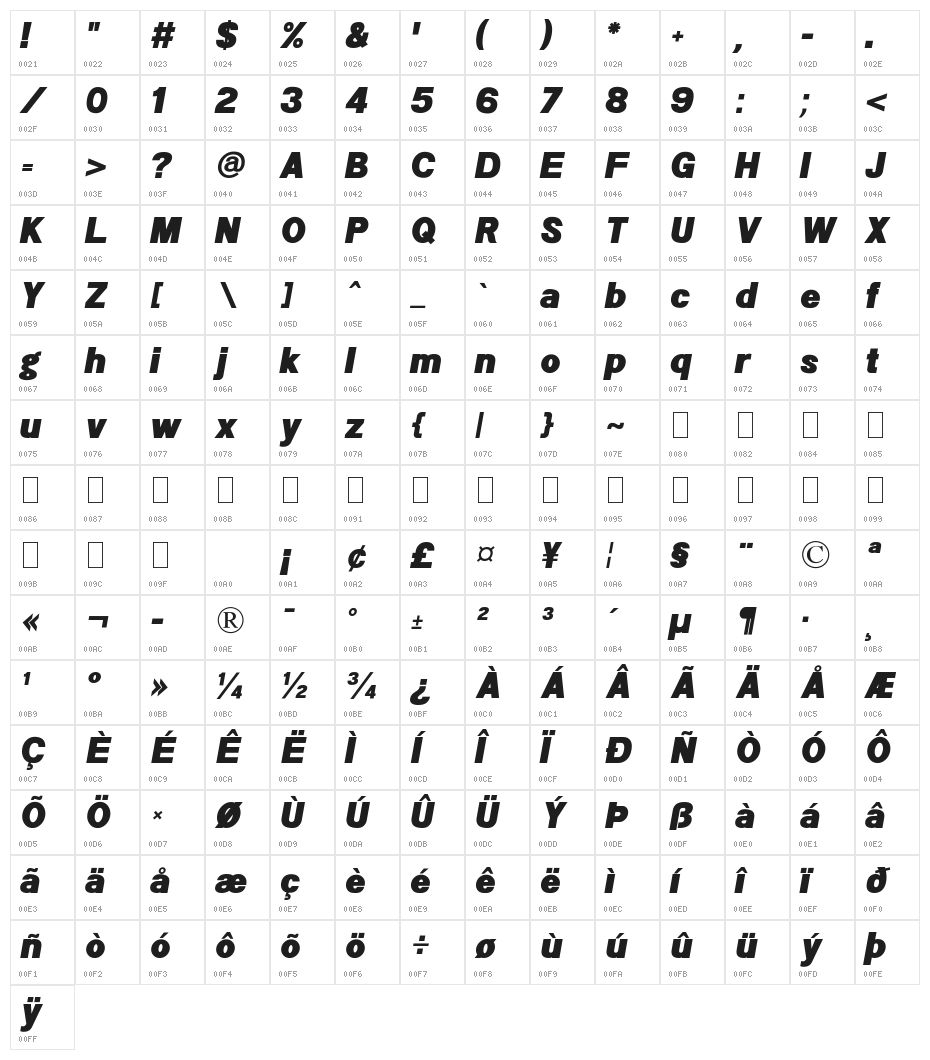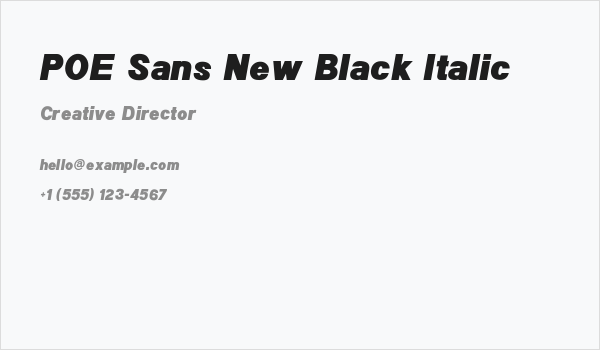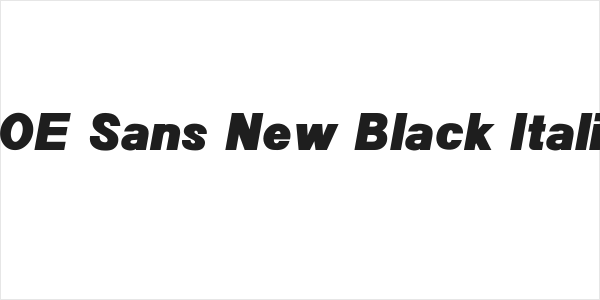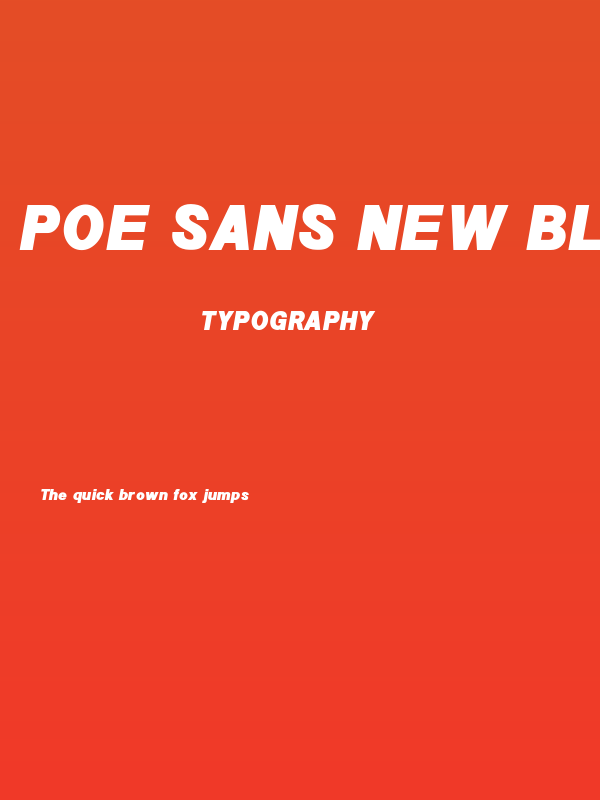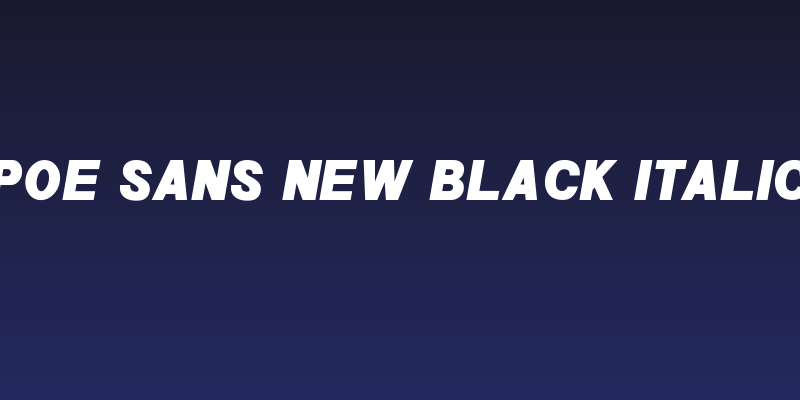
POE Sans New Black Italic Font
POE Sans New Black Italic Description
This typeface features a bold and assertive style with a strong presence. The characters are designed with a slight italic slant, giving them a dynamic and forward-moving appearance. The strokes are thick and consistent, providing a sense of stability and confidence. The uppercase and lowercase letters are well-proportioned, maintaining readability while conveying a modern aesthetic. The numbers and special characters are crafted to match the boldness of the alphabet, ensuring uniformity across all text elements. This font is ideal for making impactful statements and grabbing attention.
| Use Case | Headlines, Logos, Advertising |
| Proposed Projects | Ideal for branding, advertising, headlines, and any project requiring a strong, modern look. |